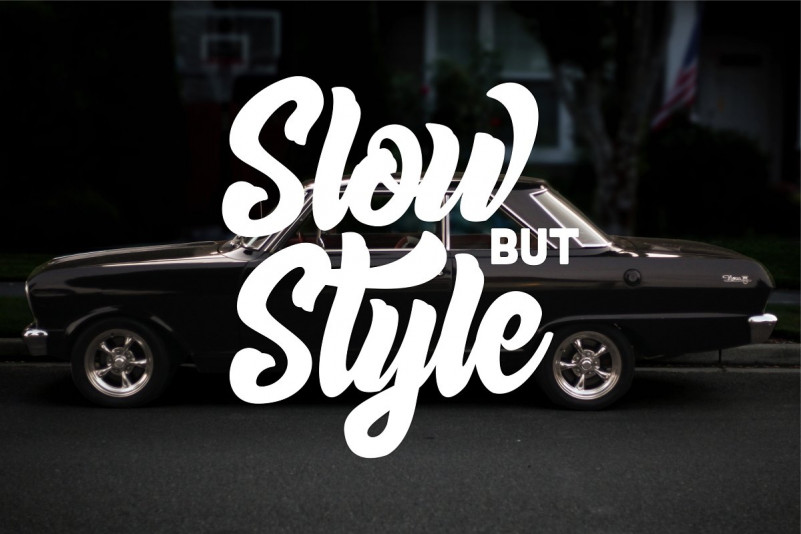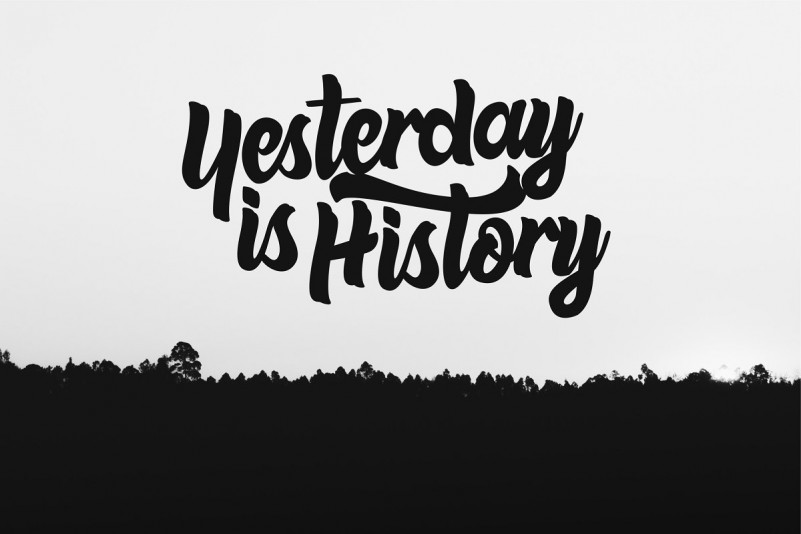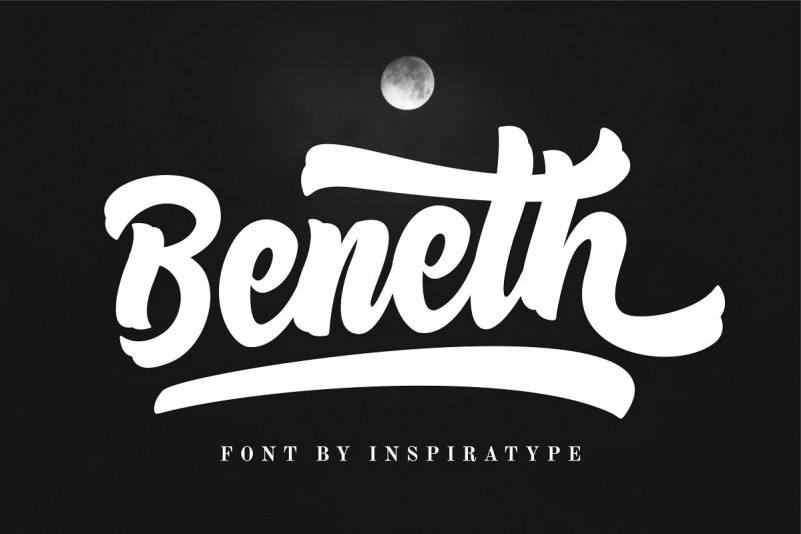
Beneth Bold Script Font
Beneth Bold Script Demo Font
Dear All. This is a bold script typeface which is simple yet casual. Made by hand written with many opentype features that you will like. Beneth Bold Script designed and shared by Inspiratype. “Beneth Script” is a font display that is made by hand, inspired by classic posters. Comes with uppercase, lowercase, numerals, punctuations and so many variations on each character include OpenType alternates, common ligatures and also additional swash to let you customize your designs. Perfect to use for Logotype, Letterhead, Poster, Apparel Design, Label and etc.